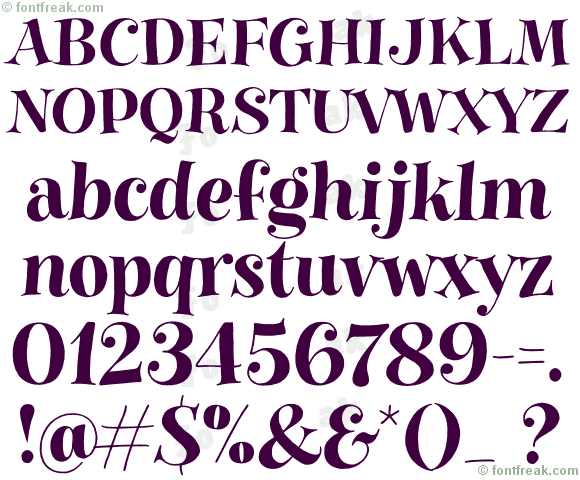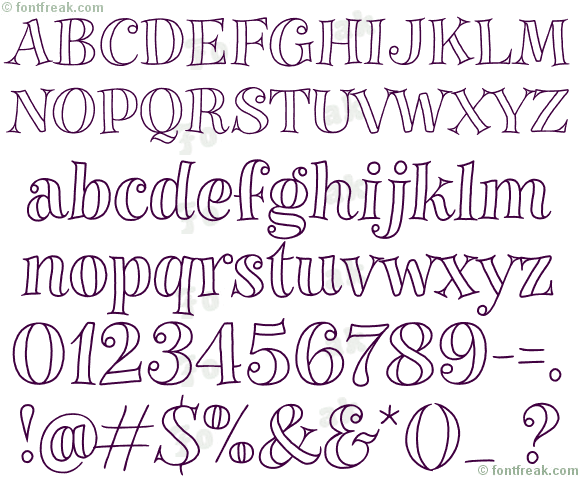
Gavabon-Clean
Gavabon-Outline
Gavabon
About Gavabon-Clean
Gavabon-Clean is a captivating display font designed by Youssef Habchi, recognized for its unique blend of modern aesthetics and elegant form. This font falls into the category of decorative typefaces, showcasing a striking contrast between bold strokes and refined curves. The stroke weight is consistent, yet it varies slightly to create a dynamic visual experience. The spacing between letters is well-balanced, ensuring legibility while maintaining an inviting appearance. The decorative elements, such as the distinctive curves and playful accents, add a flair that elevates any design project.
This font is an excellent choice for various creative applications. For graphic designers, Gavabon-Clean works beautifully for wedding invitations, where its elegant style adds a touch of sophistication. It also shines in restaurant menus, helping to convey a sense of warmth and approachability. Content creators can utilize this font for social media graphics, achieving an eye-catching appeal that captures attention. Additionally, its bold presence makes it suitable for movie posters, where it can convey themes of drama or romance effectively.
The target audience for Gavabon-Clean includes graphic designers, small business owners, and content creators who seek to enhance their projects with a touch of creativity and style. This font is particularly appealing to those who appreciate unique typography that stands out in a crowded market.